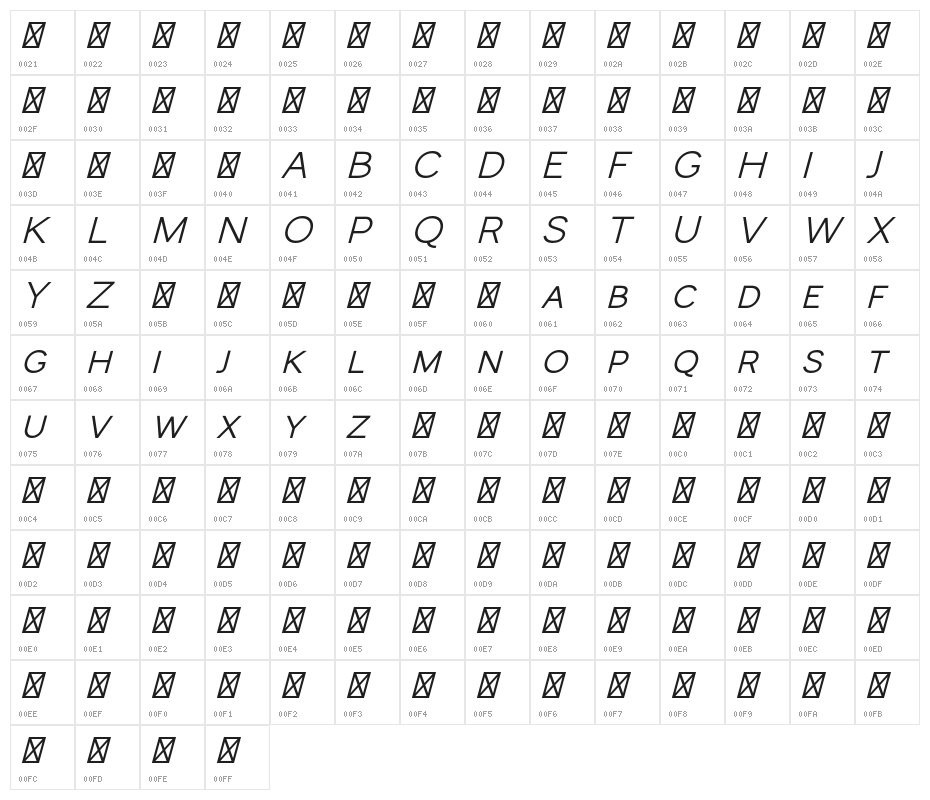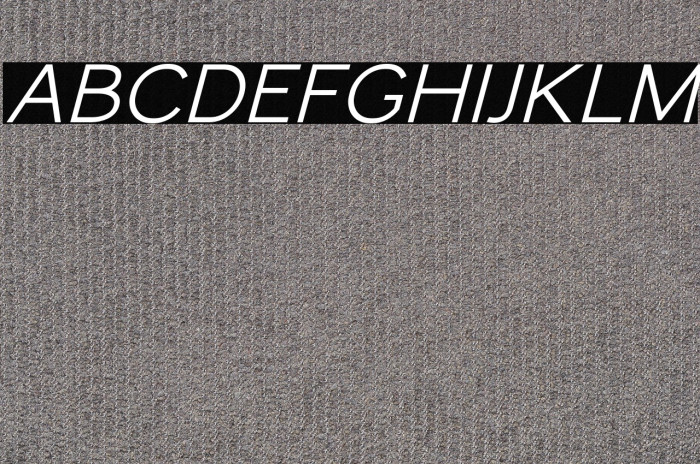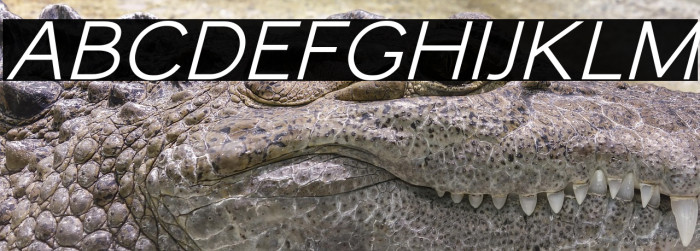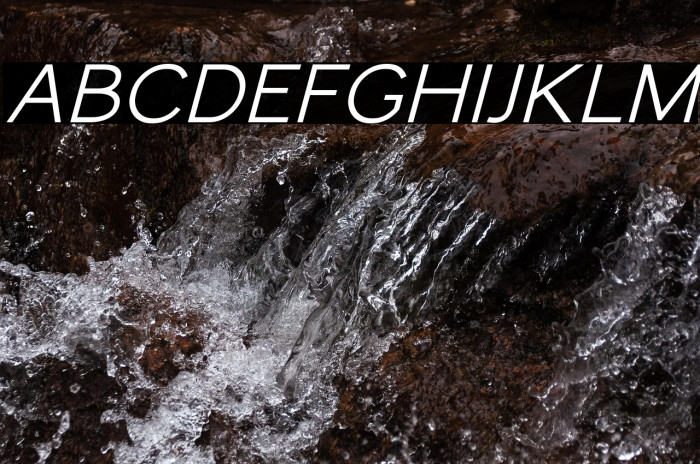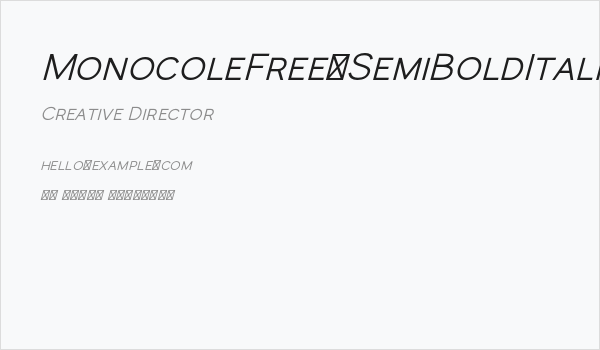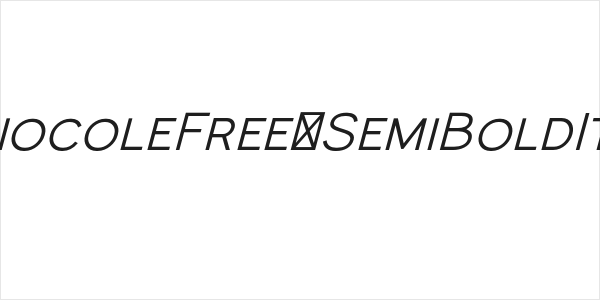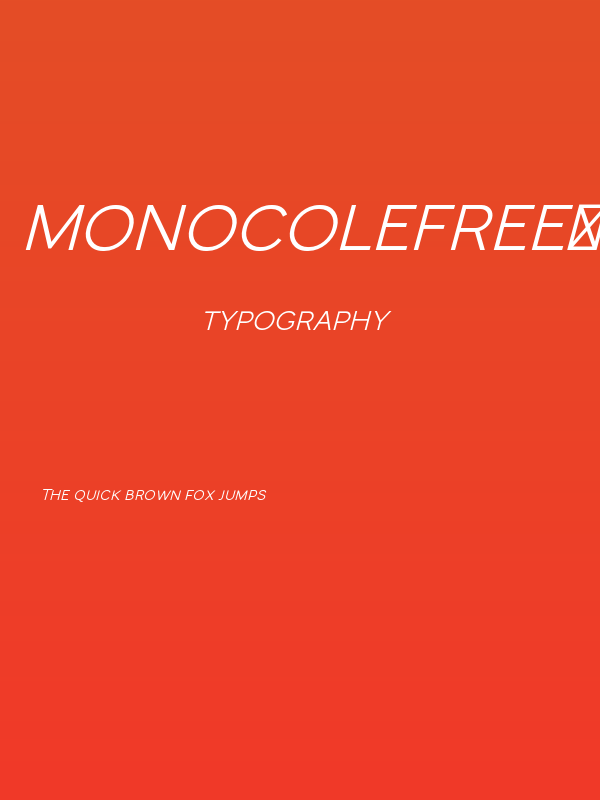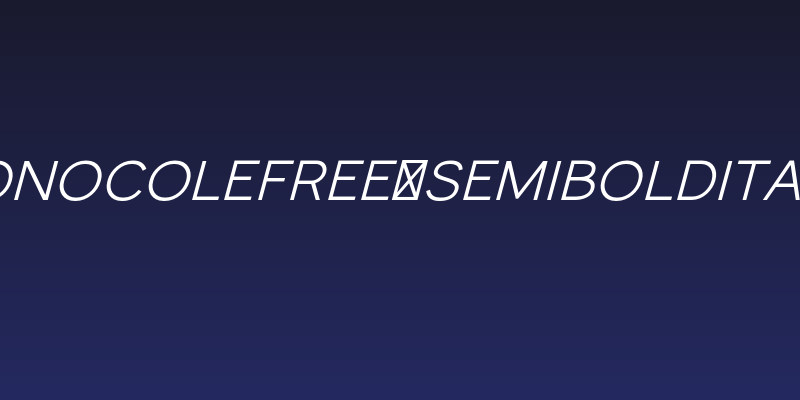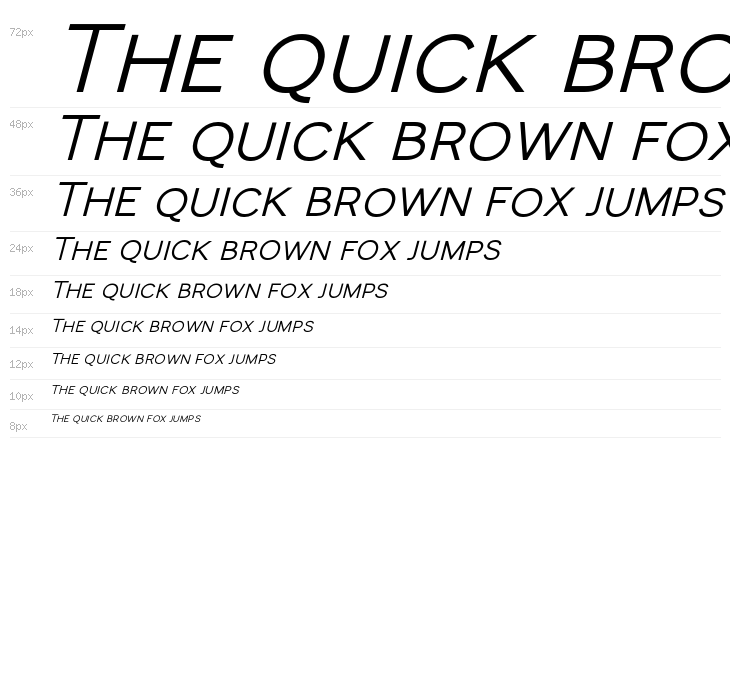
MonocoleFree-SemiBoldItalic Font
MonocoleFree-SemiBoldItalic Description
This font features a sleek and modern design with a semi-bold weight and italic style. The characters are slightly slanted, giving a dynamic and forward-moving appearance. The strokes are consistent and smooth, with a medium contrast that enhances readability while maintaining a stylish look. The uppercase and lowercase letters are well-proportioned, and the overall design is clean and professional, making it suitable for various applications.
Use CaseHeadlines, Branding, Editorial Design
Proposed ProjectsIdeal for branding, advertising, and editorial design projects where a modern and professional look is desired.